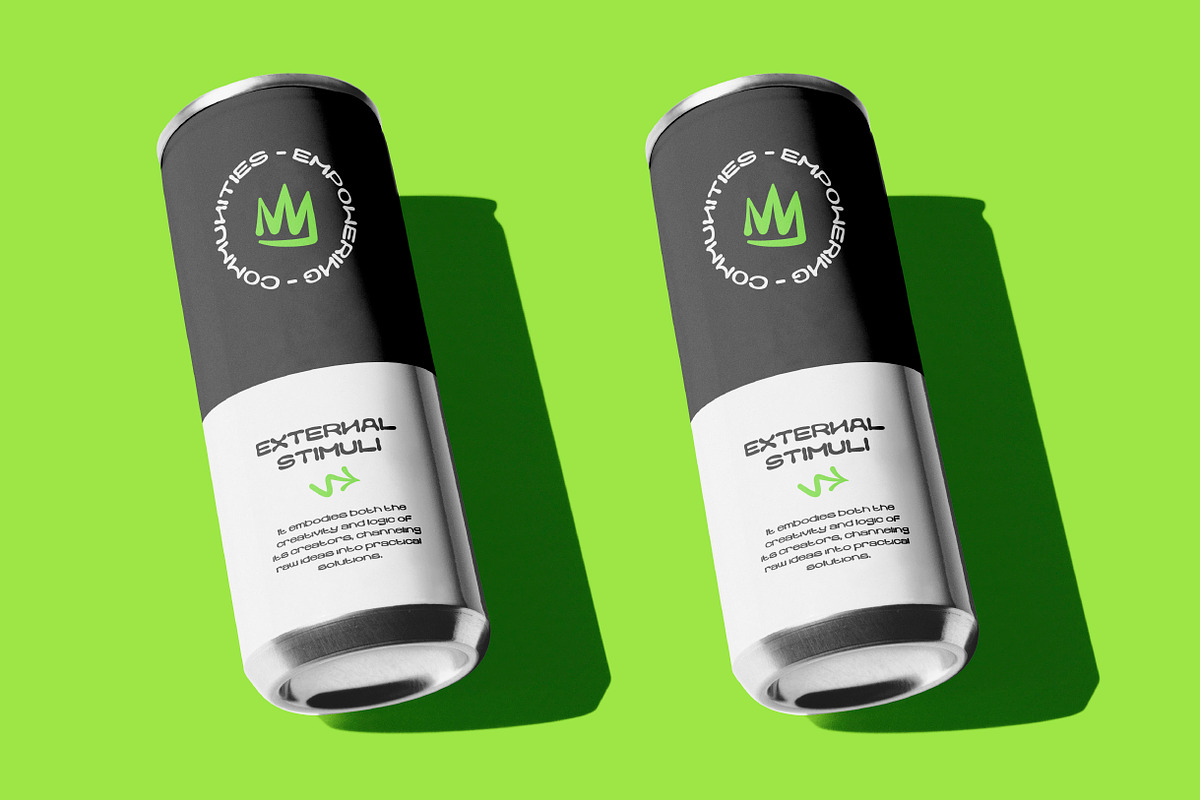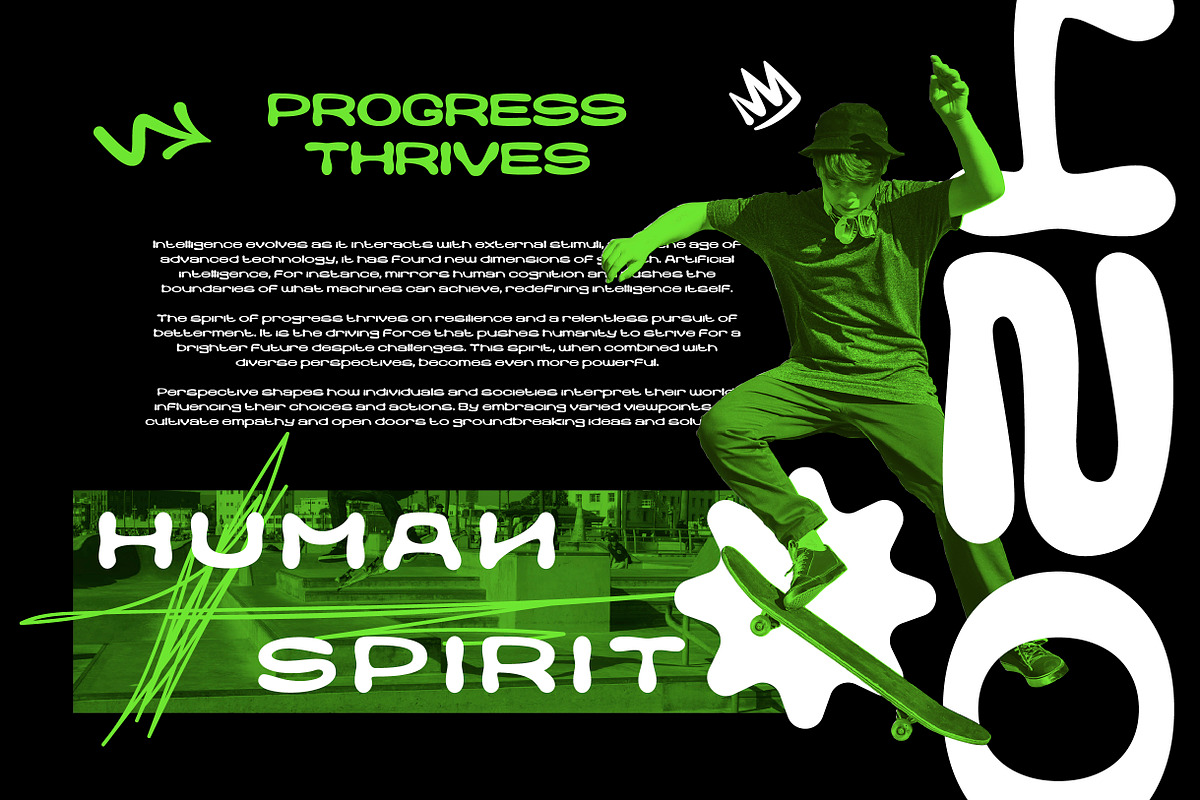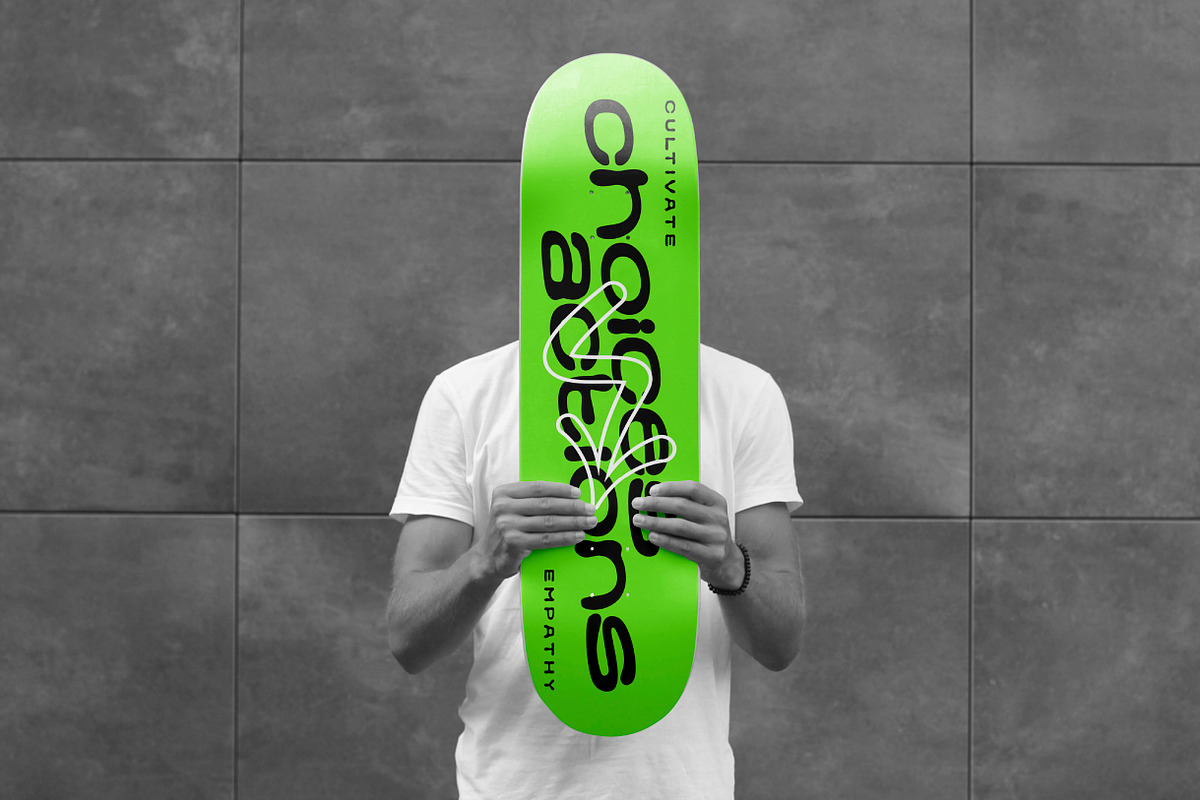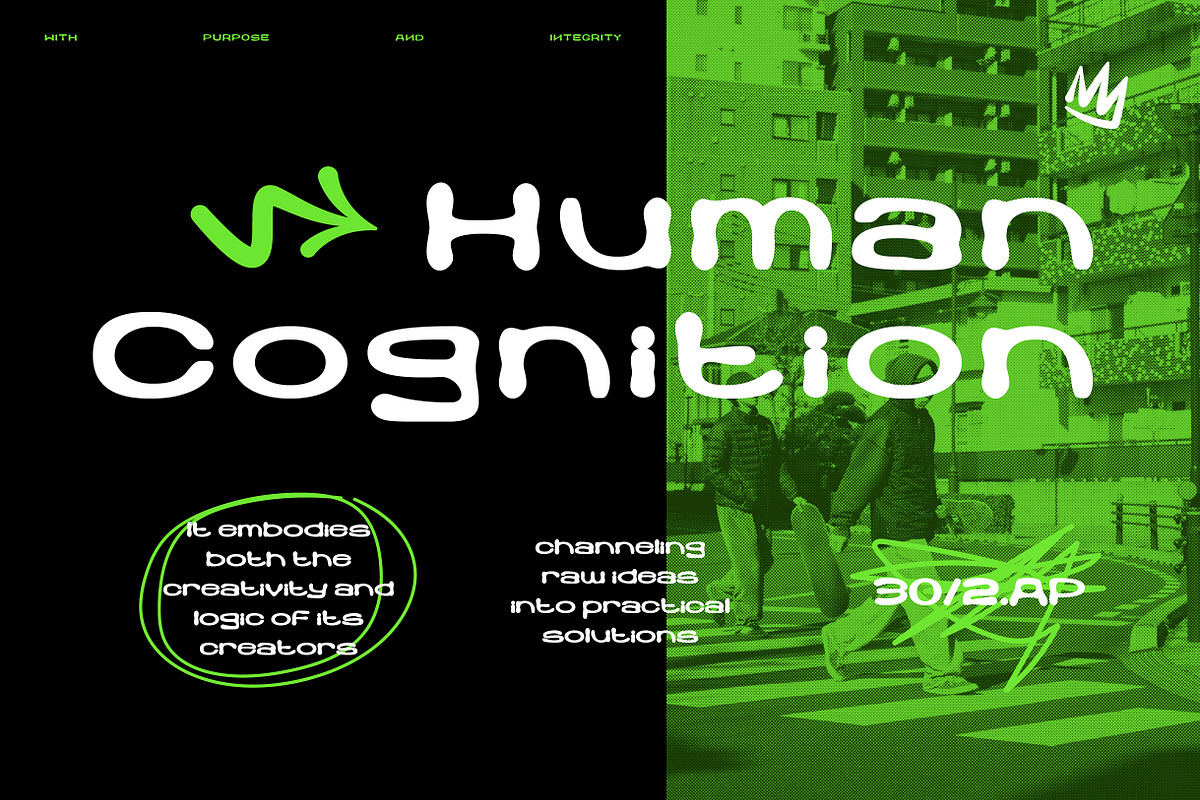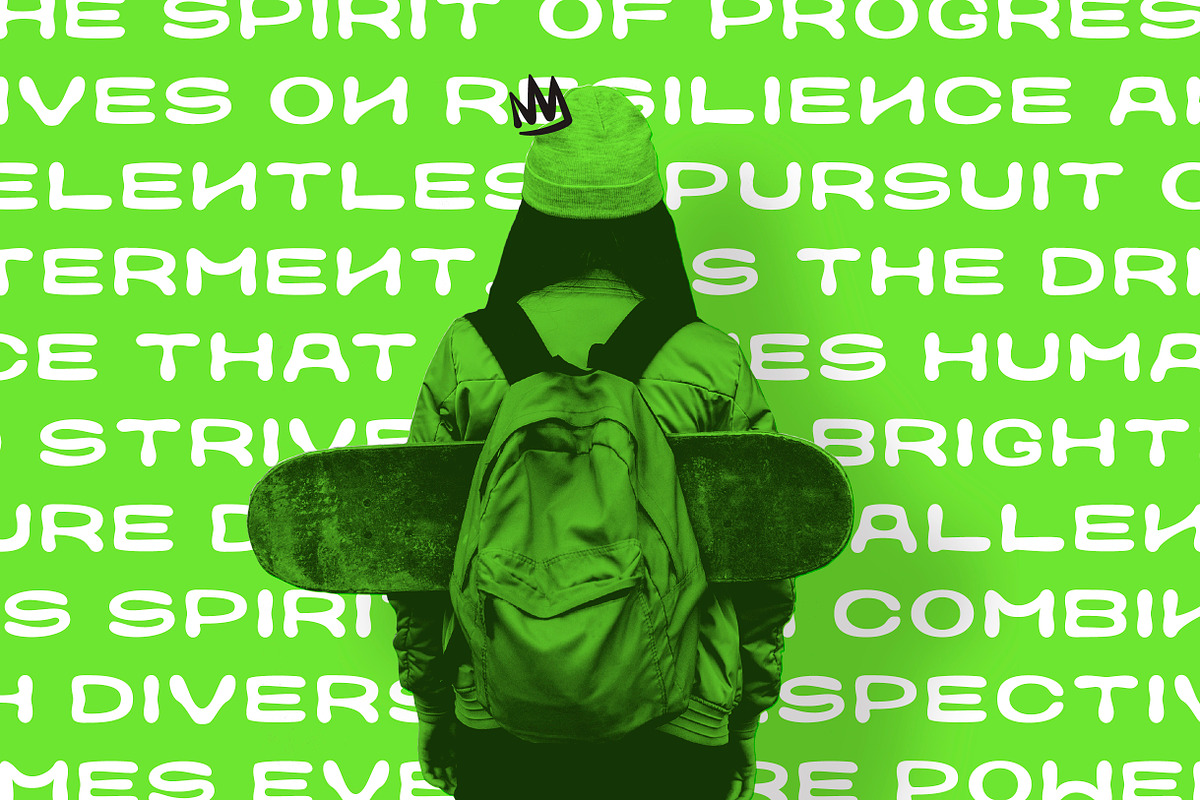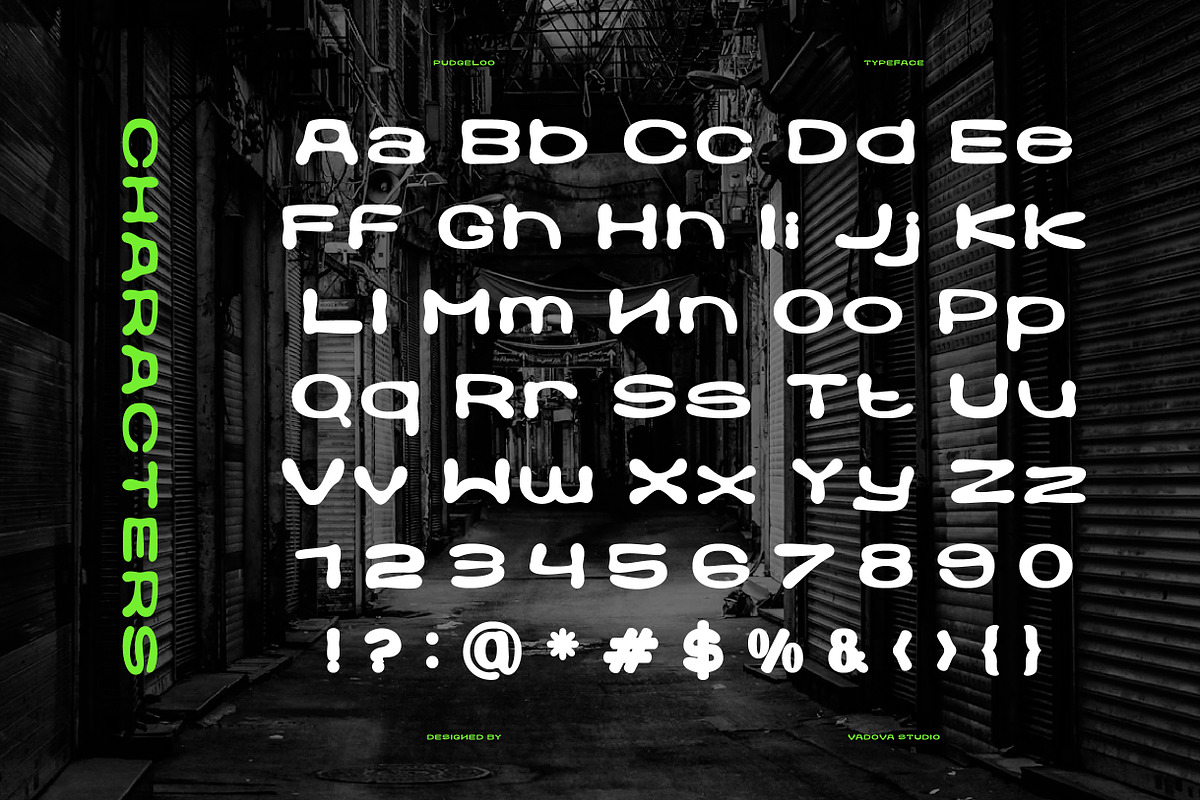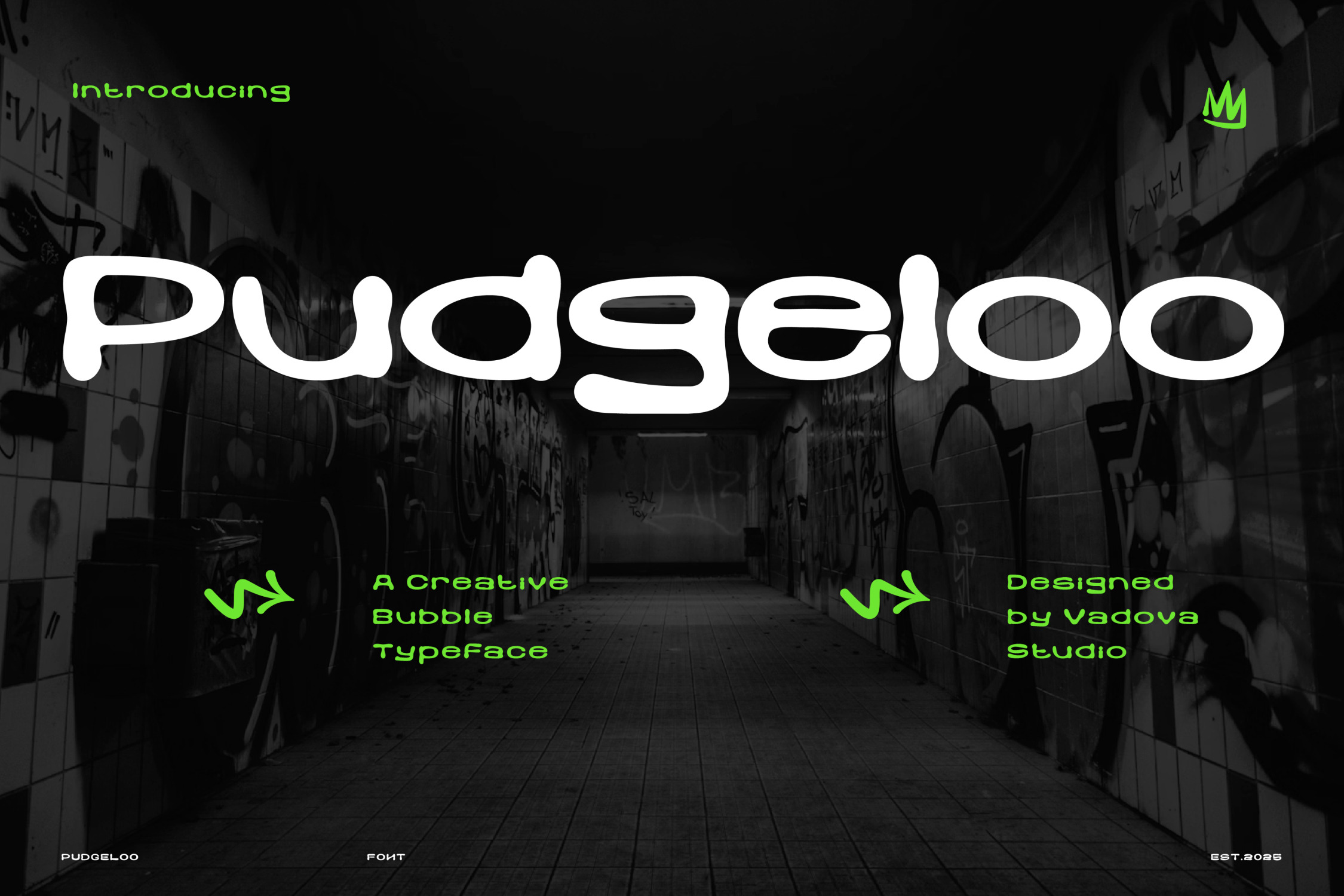
Pudgeeloo Creative Typeface Font
Pudgeloo is a creative bubble display font featuring bold rounded shapes and playful urban energy. The letterforms are designed with smooth curves and soft inflated proportions, giving the typeface a distinctive bubble-like appearance that feels expressive, modern, and highly eye-catching. Inspired by street culture, graffiti visuals, and bold contemporary design, Pudgeloo brings a lively personality that stands out in large typography.
Pudgeloo is perfect for creative projects that require energetic and expressive typography. Its rounded bubble shapes and street-inspired style make it ideal for branding, posters, streetwear graphics, album covers, editorial headlines, social media visuals, gaming graphics, youth-oriented campaigns, and modern advertising designs that need bold and playful typographic impact.
- Bold bubble-inspired letterforms with playful rounded proportions
- Smooth inflated curves that create a soft and expressive visual style
- Thick strokes and rounded terminals for strong display impact
- Slightly quirky character shapes that add personality and urban energy
- Balanced spacing designed to keep headlines bold, clear, and highly legible
- Bold brand identity projects that need playful and expressive typography
- Posters, album covers, and street-style graphics with strong display headlines
- Streetwear branding and merchandise designs with urban character
- Product packaging and labels that require eye-catching bubble lettering
- Social media graphics and youth-oriented marketing campaigns with energetic visual style